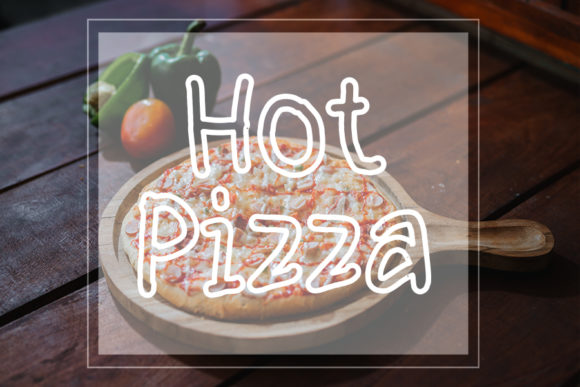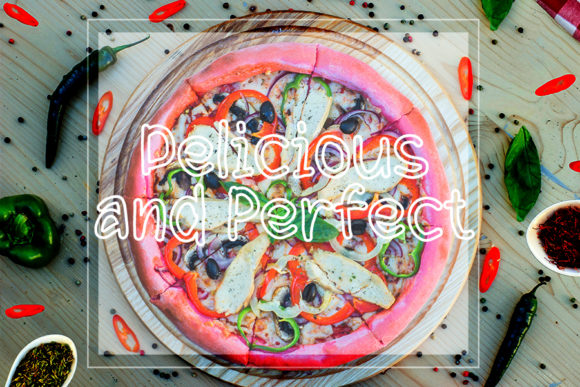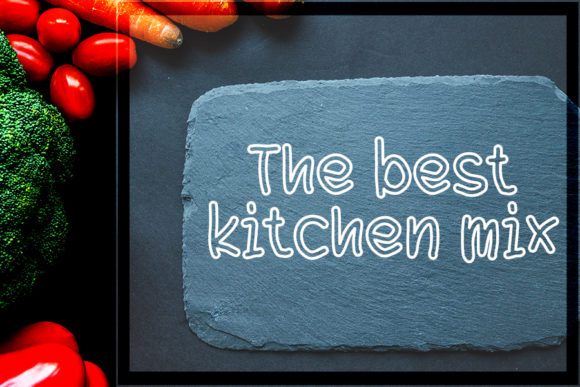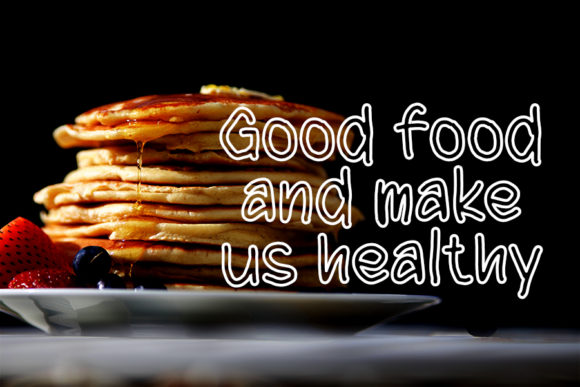
Introduction to Food Drink Font
Food Drink is a beautiful outlined display font.
Key Features of Food Drink Font
Why Choose Food Drink Font?
Food Drink Font offers exceptional quality and versatility, making it a valuable addition to your design toolkit. Whether you’re creating for personal projects or commercial use, Food Drink Font delivers professional results.